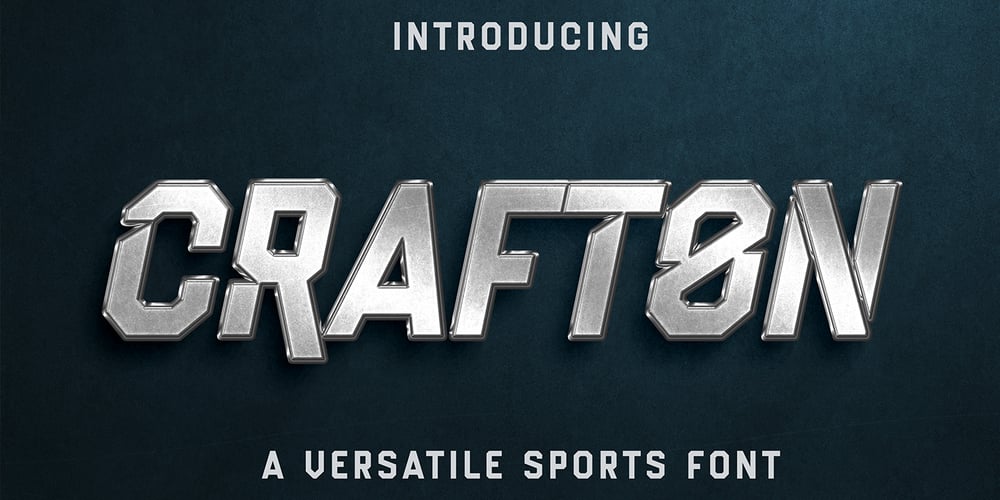
Crafton
Crafton font
Crafton Font Family was designed by Muhammad Afif Ersya and published by Mevstory Studio. Crafton contains 2 styles and family package options. Like traditional athletic block typefaces, Crafton is built with chiseled corners and a rigid skeleton. However, an underlying formula of fervor and functionality emerges in execution.The typeface features traditional block tendencies that are challenged by expressive angles and deviations in line weight that harken to penmanship. Uniquely tapered terminals seen in letters like a, c, and s demonstrate a strong visual energy while increasing legibility. The legs of angled letterforms like the A, v, and y are cropped in a way that further reinforces this motif.